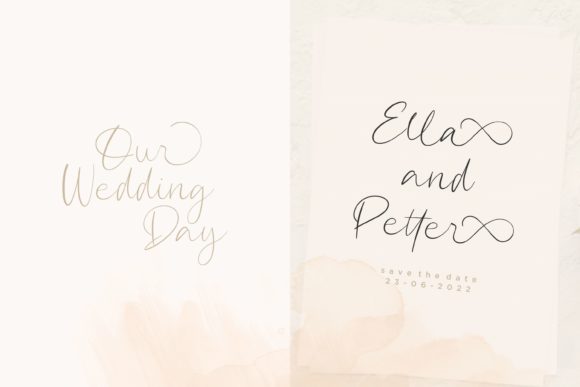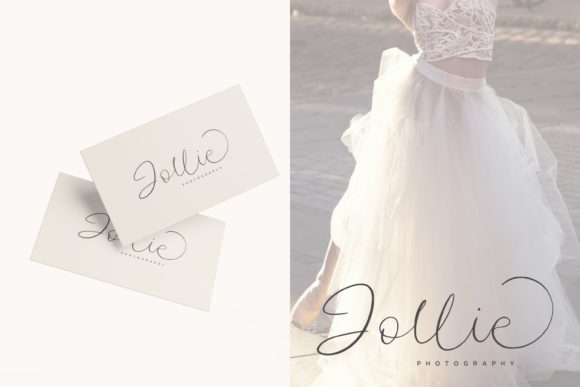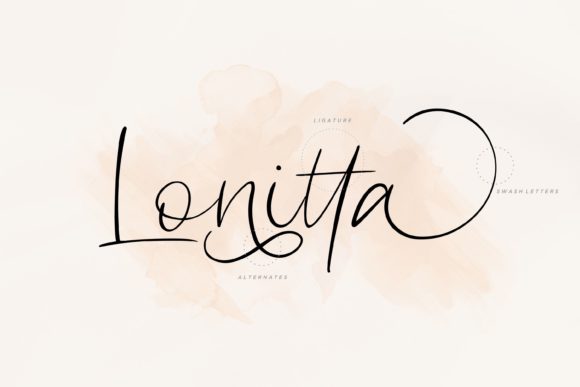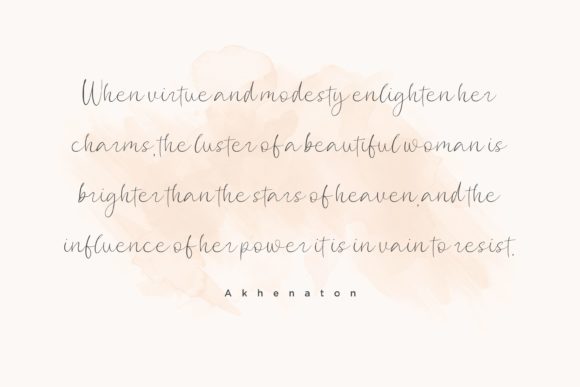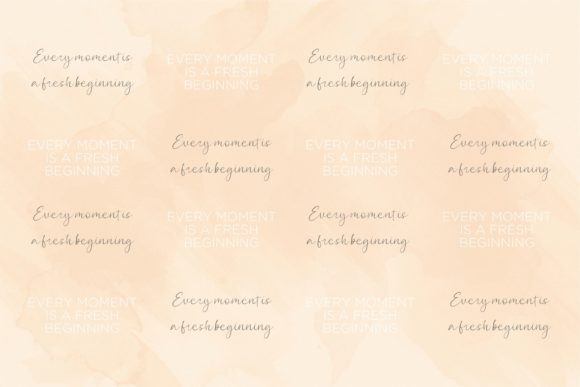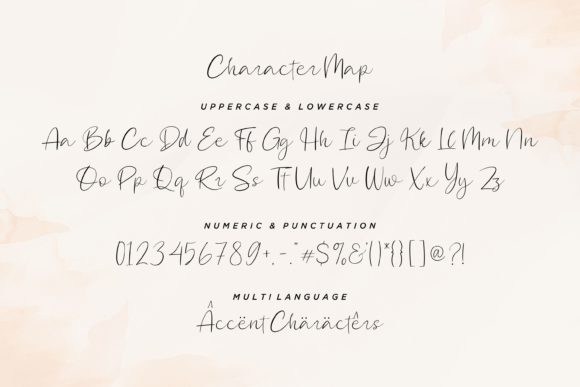
Introduction to Hello Nadhira Font
Hello Nadhira is a thin lettered and elegant handwritten font.
It looks beautiful on a variety of designs requiring a personalized style, such as wedding invitations, thank you cards, weddings, greeting cards, logos and so on Hello Nadhira is PUA encoded which means you can access all of the glyphs and swashes with ease.
Key Features of Hello Nadhira Font